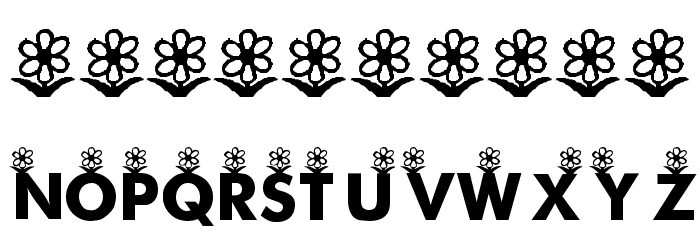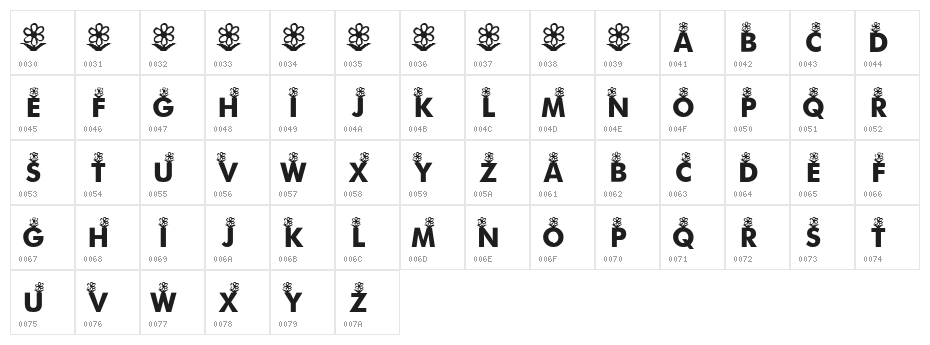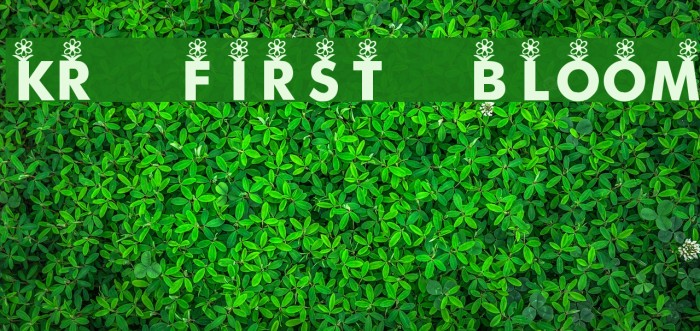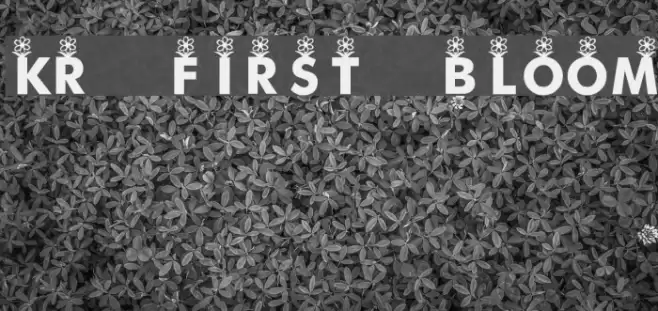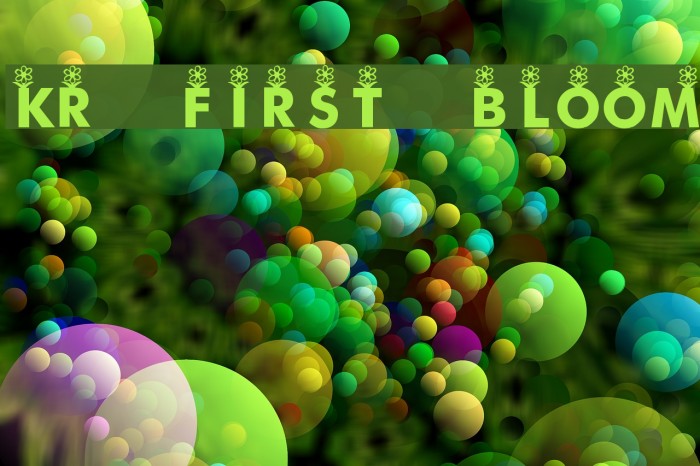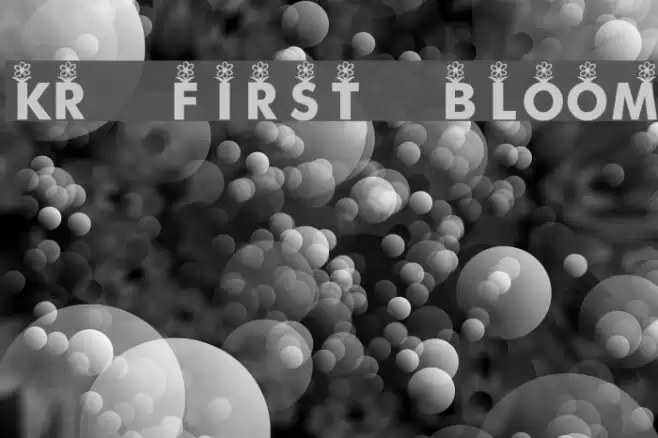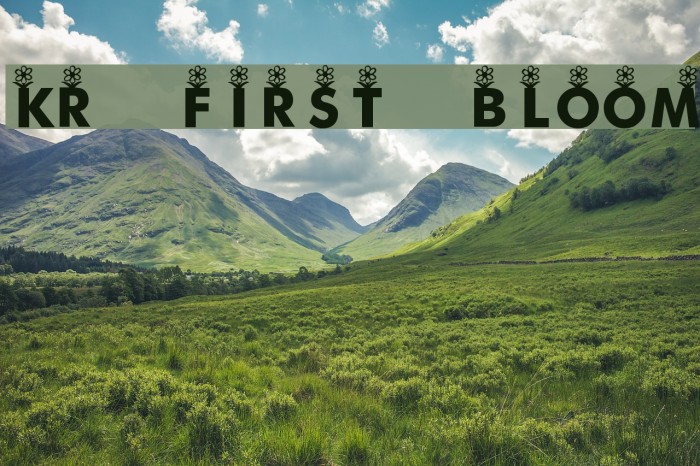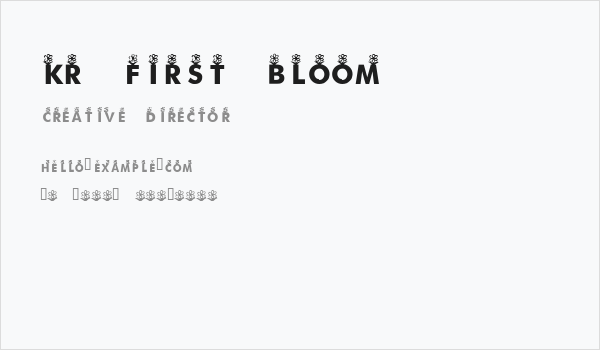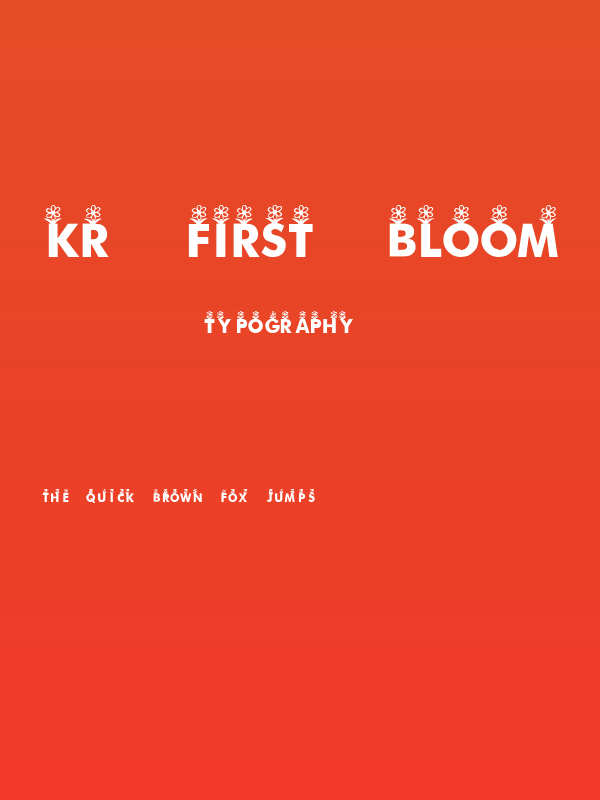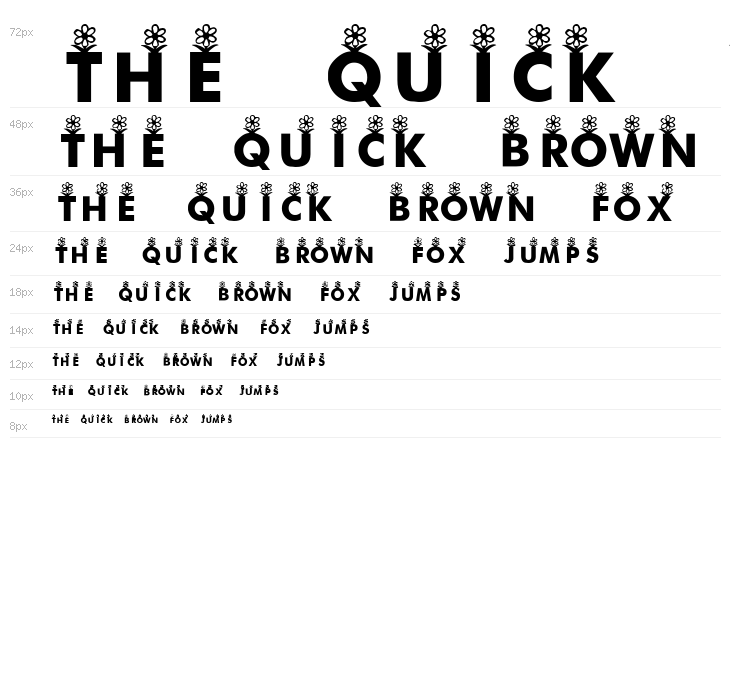
KR First Bloom Font
KR First Bloom Description
This font features a playful and decorative style, characterized by bold, uppercase letters adorned with small floral motifs above each character. The letters are evenly spaced and maintain a consistent weight, providing a balanced and harmonious appearance. The floral elements add a whimsical touch, making it ideal for projects that require a fun and lively aesthetic. The font's boldness ensures readability while the decorative elements enhance its visual appeal.
| Use Case | Headlines, Logos, Decorative text |
| Proposed Projects | Ideal for greeting cards, children's book covers, playful branding, and decorative posters. |